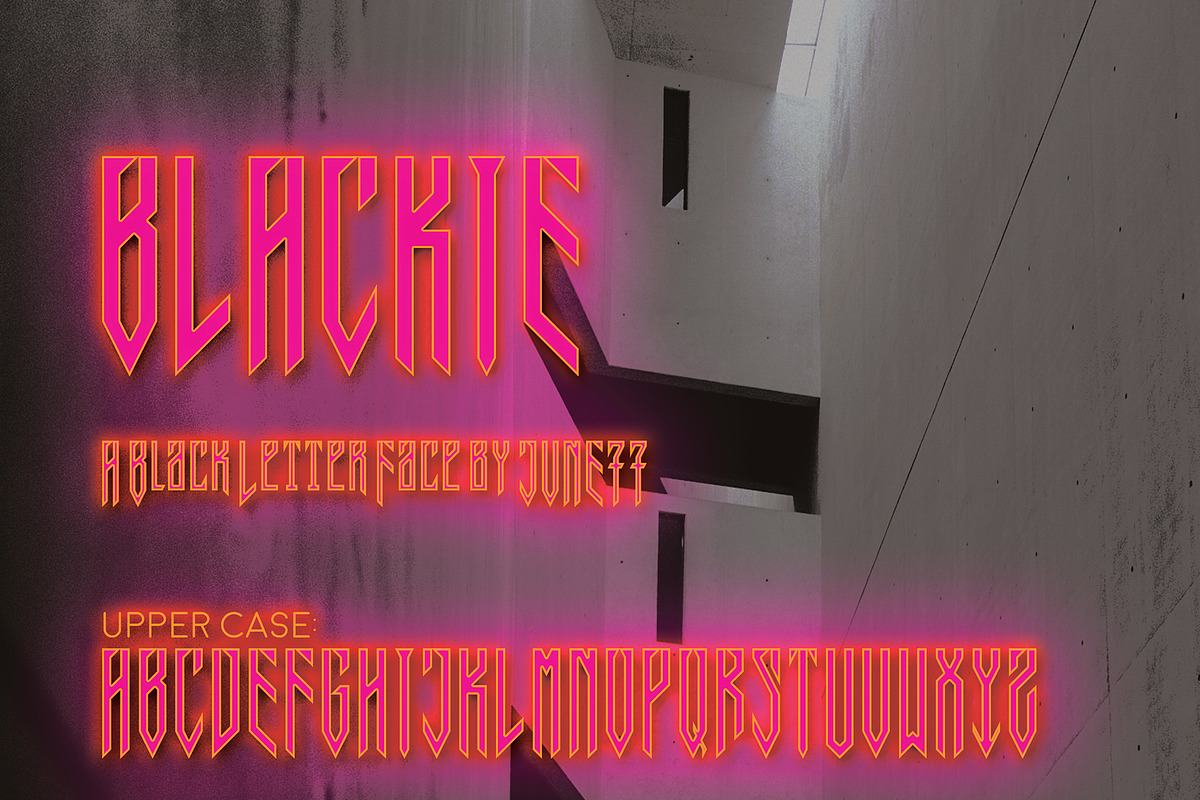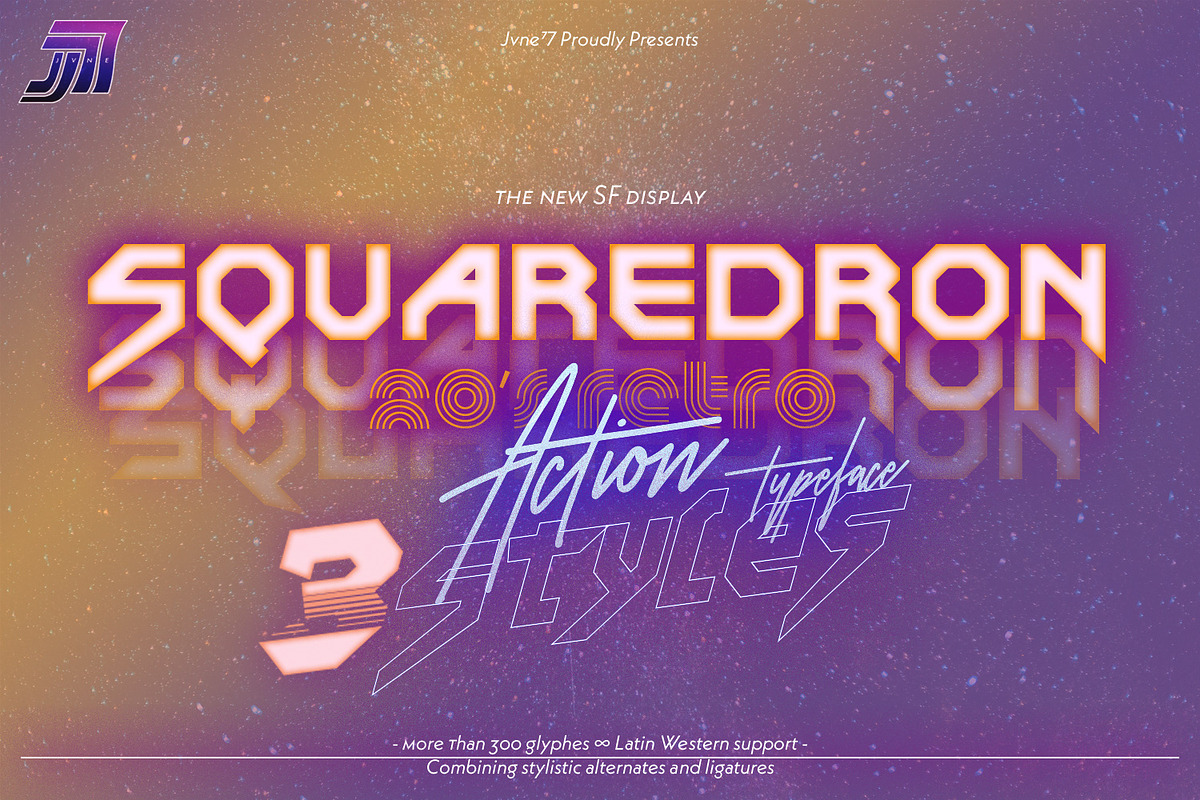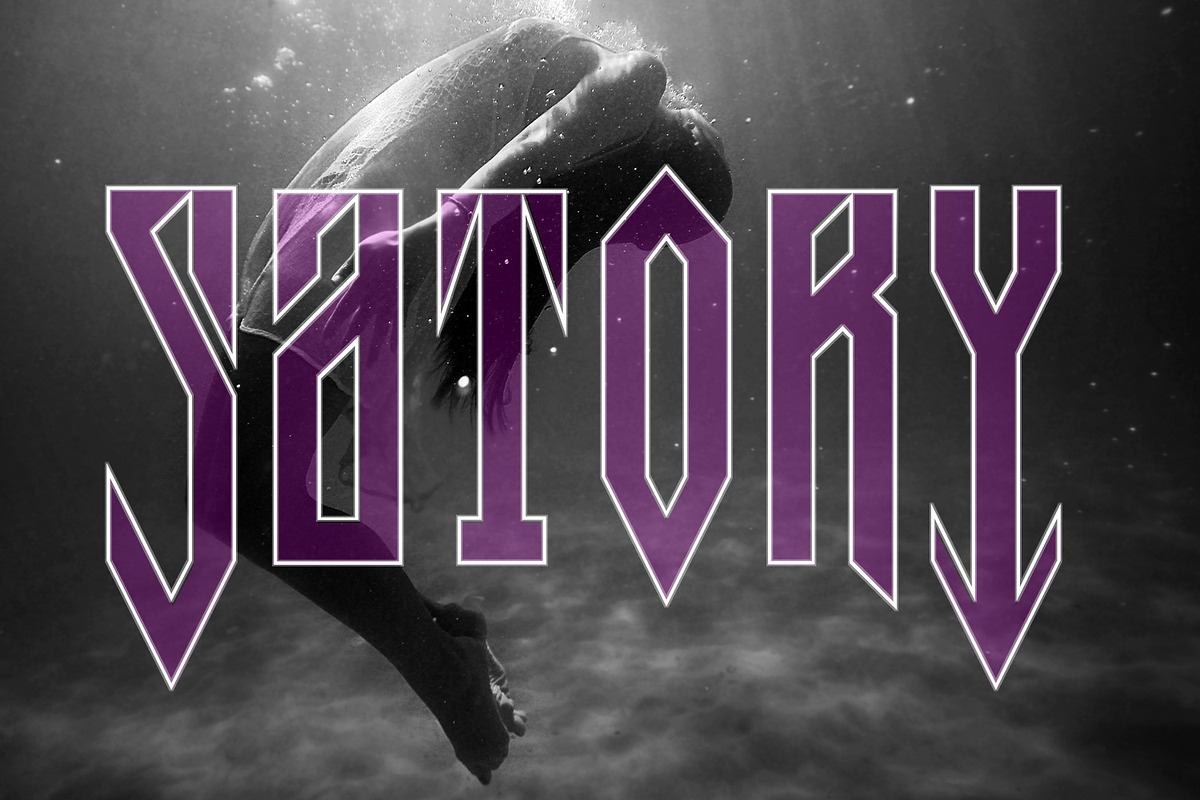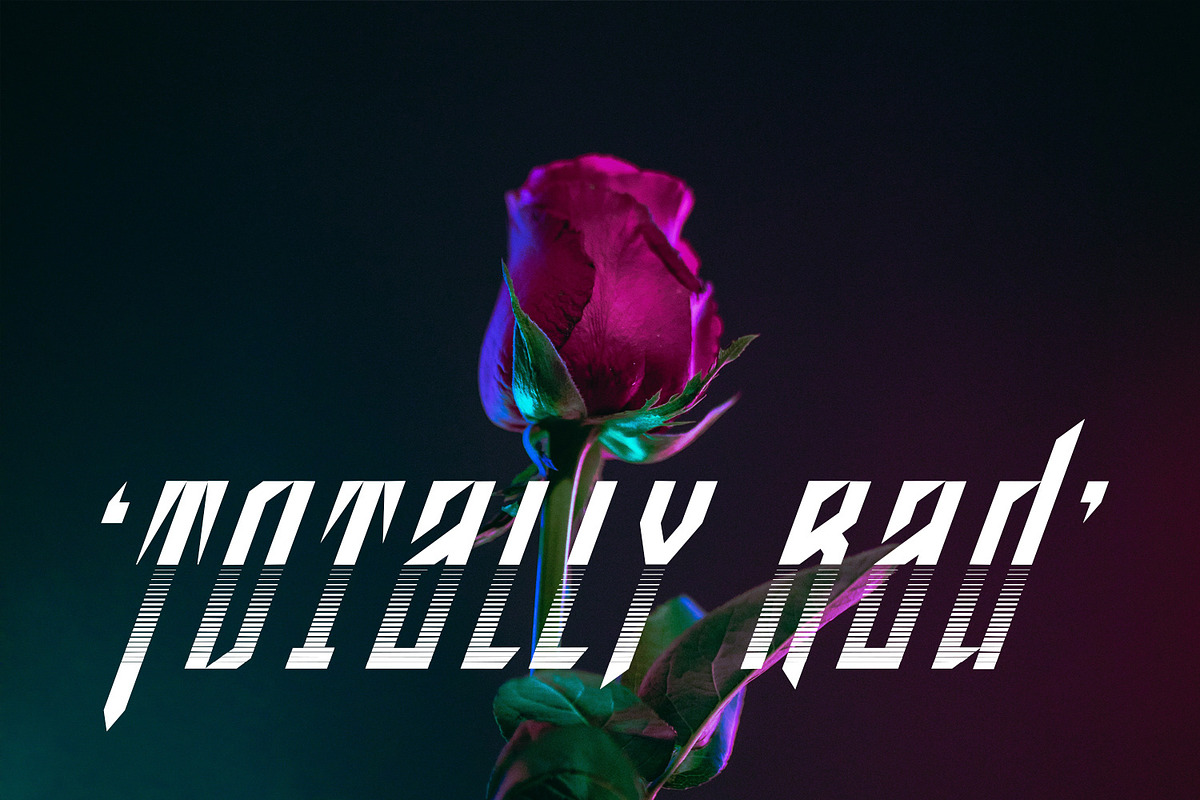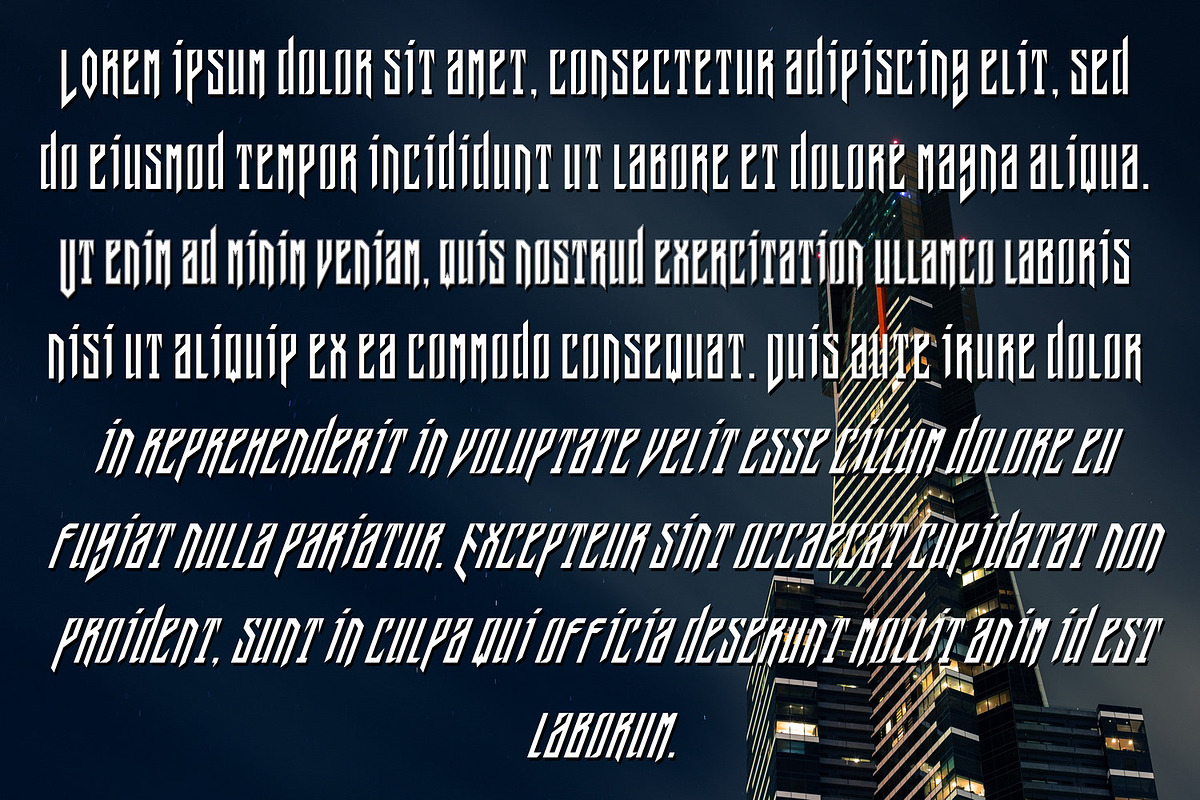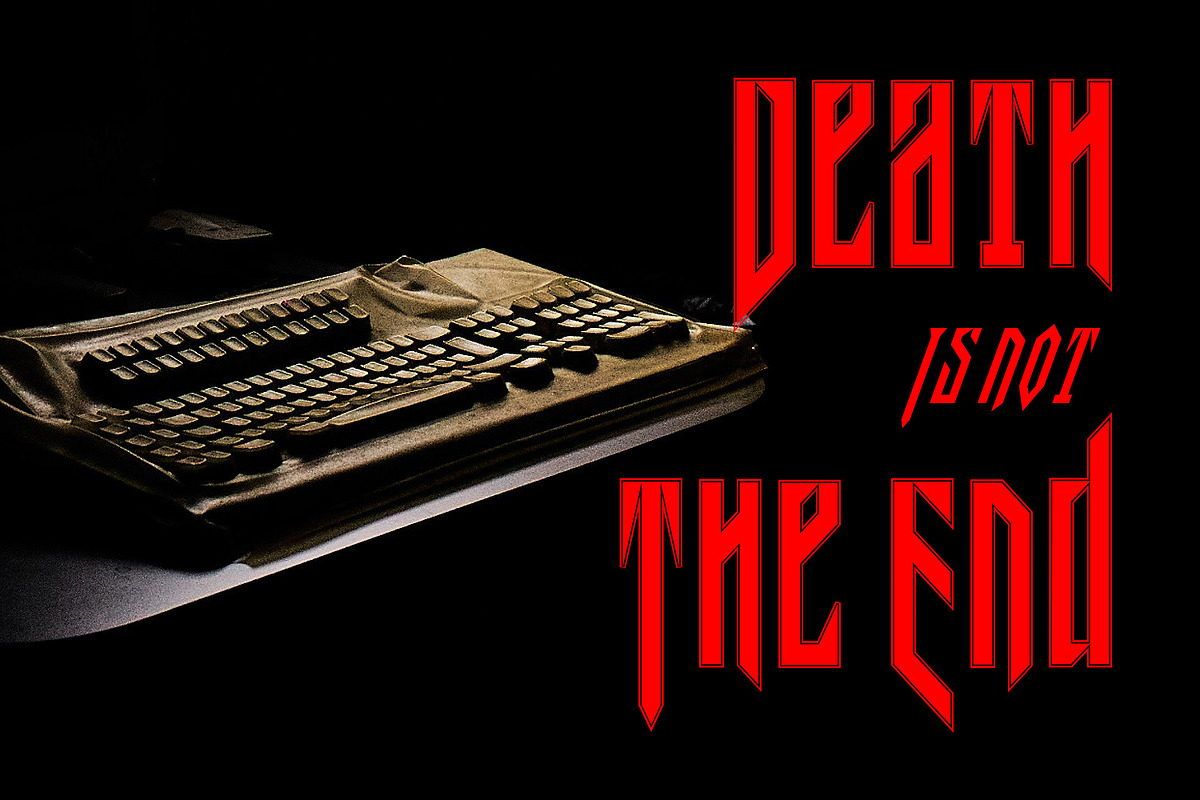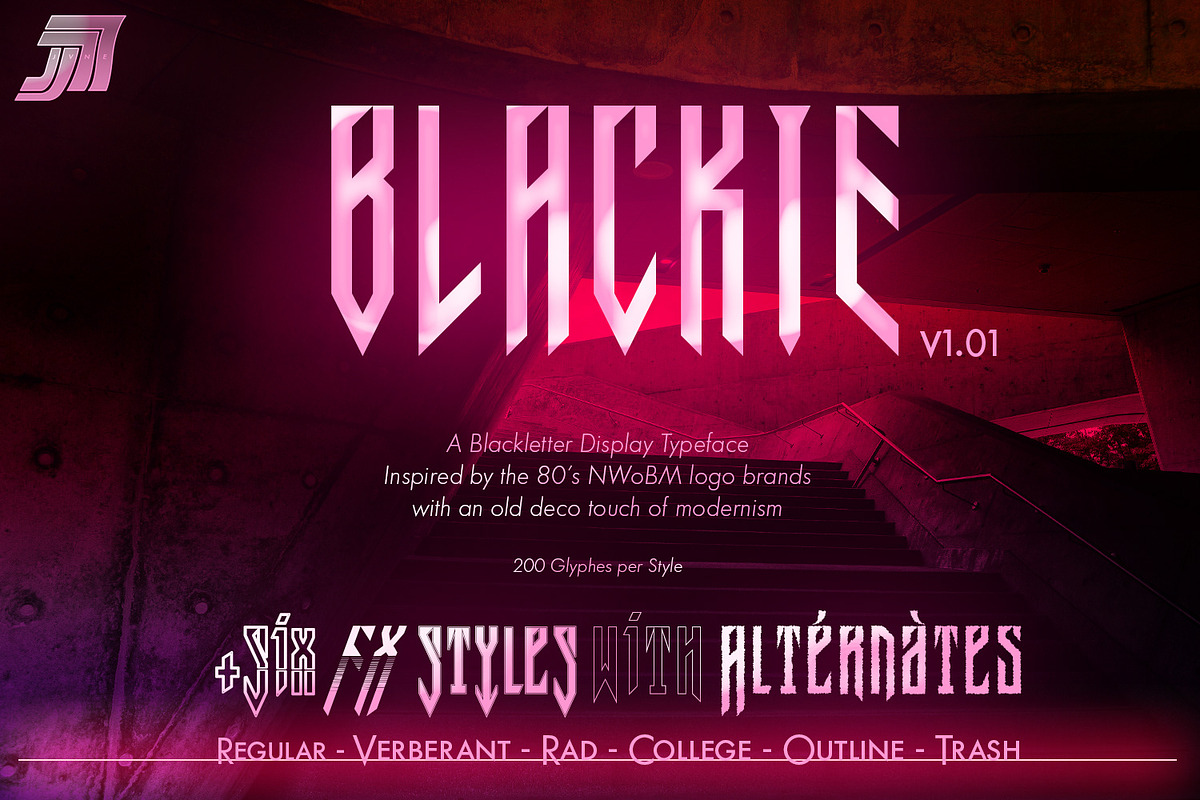
Retrowave Bundle of Fonts & Graphics
Enjoy these past works, including the best-seller font family Squaredron. 3 families for 14 fonts in total. Extended License is also comprised for the graphics.
JVNE Blackie Font JVNE Blackie is a display typeface inspired by some heavy metal band logos from the 80’s. It’s a brand new Retro-Futurist Fraktur typeface, covering most Latin language and European accents. Blackie now comes with six styles and some alternates: Regular, College, Outline, Trash, Verberant & Rad, each including tons of glyphs.
JVNE Squaredron V2 Font JVNE Squaredron V2 is a retro display typeface family, ideal for futuristic and tech oriented designs. This font family includes 318 glyphs so you can customize your type-based projects.
JVNE W.O.P.R Pro and Wopper Eighty Free Fonts: JVNE W.O.P.R is heavily inspired by the 1983 movie “WarGames,” with a retro, nostalgic feel. This font is a wonderful display font for use in posters and other display options.
NeonGlass Scene Generator - Graphics NeonGlass Scene Generator may be useful for your 80’s projects or other Lighting flyer and logo creations. It includes a psd template plus some styles and a 2 bonus wall pictures.
Retrowave NEON Flakes Scene Generator - Graphics Retrowave NEON Flakes Scene Generator may be useful for your 80’s projects or other logo creations. It includes 2 psd templates (RVB, 300dpi) plus some styles, gradients, screen textures and a bonus bokehs set.